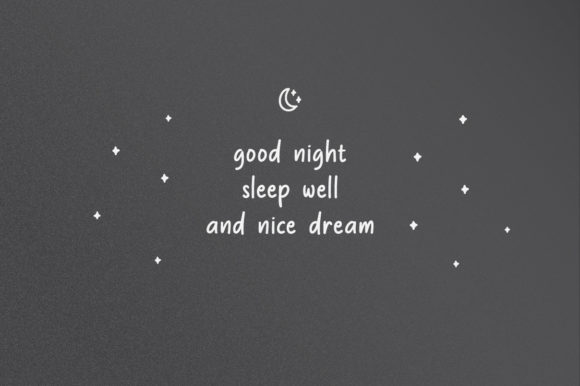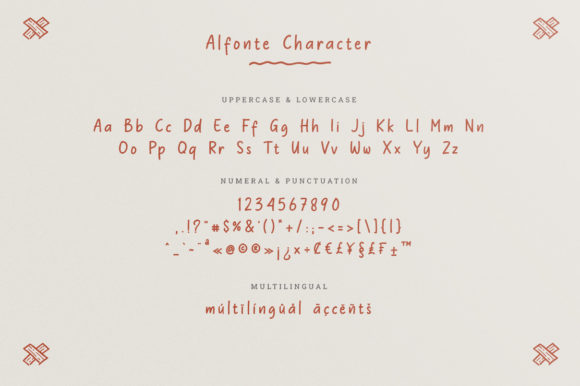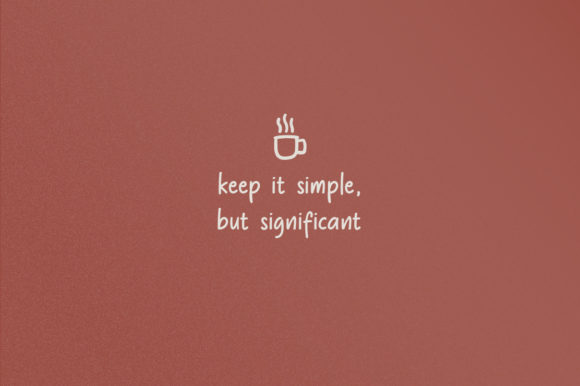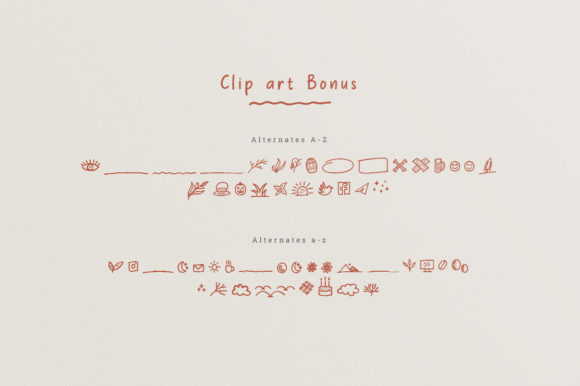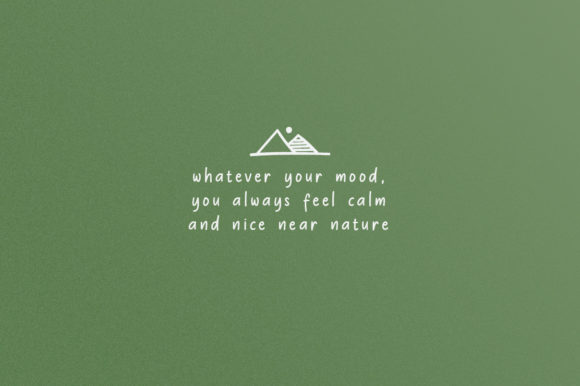
Discover the Elegance of Alfonte Font: A Clean Script Font for Your Creative Projects
Are you tired of using the same old fonts for your designs? Look no further! Alfonte Font is a game-changer for designers and crafters alike. This clean script font is not only visually stunning but also unique and natural, making it perfect for adding a touch of elegance to your projects. In this article, we’ll dive into the world of Alfonte Font and explore its features, benefits, and uses.
What is Alfonte Font?
Alfonte Font is a clean script font that is made from the designer’s digital handwriting. This means that each letter, curve, and swoop is carefully crafted to create a natural and authentic look. The font is free from any clutter or unnecessary elements, making it clean and easy to read. Whether you’re working on a logo, branding, or marketing materials, Alfonte Font is sure to make your designs stand out.
Unique Features of Alfonte Font
So, what sets Alfonte Font apart from other fonts? Here are a few unique features that make it a must-have for designers and crafters:
- PUA Encoded: Alfonte Font is PUA (Private Use Area) encoded, which means you can access all of the glyphs and swashes with ease. This makes it easy to customize your text and add a personal touch to your designs.
- Clean and Elegant: The font is clean, elegant, and sophisticated, making it perfect for high-end designs, branding, and marketing materials.
- Handwritten: Alfonte Font is made from the designer’s digital handwriting, giving it a natural and authentic look that’s hard to replicate with generic fonts.
- Versatile: The font is versatile and can be used for a wide range of projects, from logos and branding to social media graphics and marketing materials.
Benefits of Using Alfonte Font
So, why should you choose Alfonte Font for your next project? Here are a few benefits that make it a great choice:
- Adds a Touch of Elegance: Alfonte Font adds a touch of elegance and sophistication to your designs, making them stand out from the crowd.
- Authentic Look: The font’s handwritten nature gives it an authentic look that’s perfect for designs that require a personal touch.
- Easy to Use: Alfonte Font is easy to use and customize, making it perfect for designers of all levels.
- Time-Saving: With its PUA encoding, you can access all of the glyphs and swashes with ease, saving you time and effort.
Who Can Benefit from Alfonte Font?
Alfonte Font is perfect for a wide range of designers and crafters, including:
- Graphic Designers: Graphic designers can use Alfonte Font to create stunning logos, branding, and marketing materials.
- Crafters: Crafters can use the font to create beautiful handmade cards, gift tags, and other paper crafts.
- Social Media Managers: Social media managers can use Alfonte Font to create engaging social media graphics and posts.
- Marketers: Marketers can use the font to create eye-catching marketing materials, such as brochures, flyers, and posters.
In conclusion, Alfonte Font is a clean script font that’s perfect for designers and crafters looking to add a touch of elegance to their projects. With its unique features, benefits, and versatility, it’s a great choice for a wide range of projects. Whether you’re working on a logo, branding, or marketing materials, Alfonte Font is sure to make your designs stand out. So why wait? Download Alfonte Font today and take your designs to the next level!